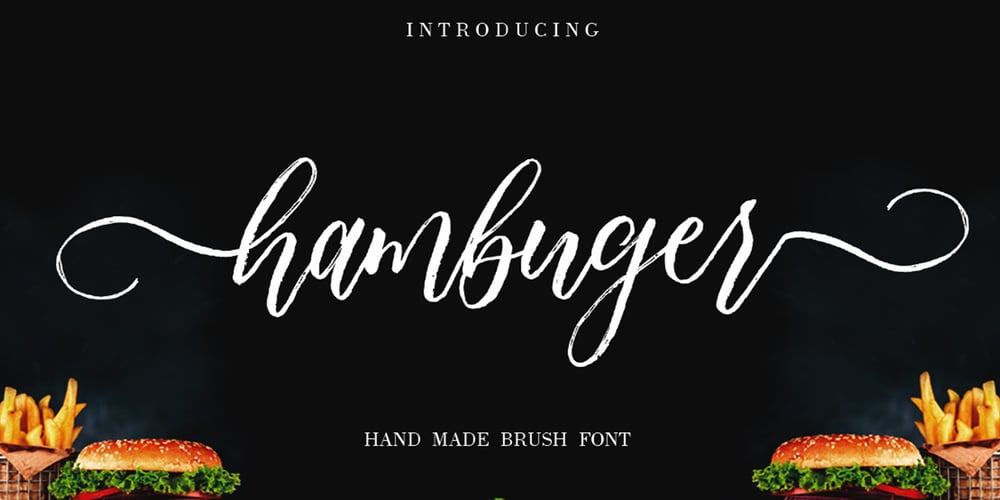
Hambuger Script
Hambuger Script font
Hambuger Script Font Family was designed by Teuku Muslyawan and published by DonyaDesign. Hambuger Script contains 1 styles and family package options. Hambuger brush script font textured perfectly and based on the expression of the signature style that flows freely, friendly and organic. Hand painted with love. It includes ligatures and alternates characters in Open Type Features. Perfect for brand projects, logos, product packaging, posters, invitations, greeting cards, news, blogs, everything including personal charm. How to access all alternative characters, using Windows Character Map with Photoshop: https://www.youtube.com/watch?v=Go9vacoYmBw How to access all alternative characters using Adobe Illustrator: https://www.youtube.com/watch?v=XzwjMkbB-wQ Hambuger is encoded with Unicode PUA, allowing full access to all additional characters without designing special software. Mac users can use Font Book, and Windows users can use Character Map to view and copy one of the extra characters to paste into your favorite text editor / application. Thank you for your purchase!